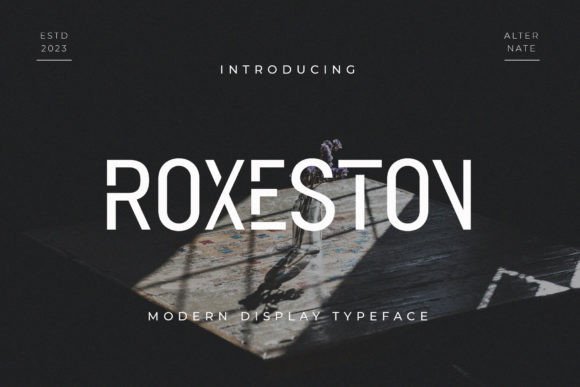
Introducing ROXESTON Modern Sans Serif Font, the epitome of elegance and modernity in the world of fonts. Created by the talented ToniStudio, this font has been meticulously designed to meet the demands of today's market and is set to become a favorite among designers and creatives alike.
With its bold and authentic look, ROXESTON Font adds a touch of sophistication to any design. Whether you're working on logo branding, template design, esports graphics, books, or album covers, this font will elevate your creations to new heights. Its versatility knows no bounds, making it a must-have for all your design needs.
What sets ROXESTON Font apart is its seamless blend of elegance and readability. Each character is meticulously crafted to ensure easy legibility while exuding a stylish and attractive vibe. Say goodbye to boring and mundane fonts, and welcome a font that truly captures attention and leaves a lasting impression.
But that's not all. ROXESTON Font is not just visually stunning; it's also incredibly user-friendly. With its PUA encoding, accessing its vast array of amazing glyphs and ligatures becomes a breeze. Now you can effortlessly create unique and eye-catching designs without any hassle.
Imagine the impact ROXESTON Font can have on your brand. It has the power to make your logo stand out from the crowd, making a lasting impression on potential customers. It brings a touch of professionalism to your template designs, ensuring that your message is conveyed with utmost clarity and style.
ROXESTON Font is more than just a font; it's a game-changer. It revolutionizes the way you approach design, giving you the tools to create something truly extraordinary. So why settle for ordinary when you can have extraordinary? Take your designs to the next level with ROXESTON Font.
Unlock your creativity and let your imagination run wild with ROXESTON Font. It's time to set yourself apart from the competition and make a statement with your designs. Elevate your brand, captivate your audience, and leave a lasting impression with the font that embodies elegance, style, and creativity – ROXESTON.